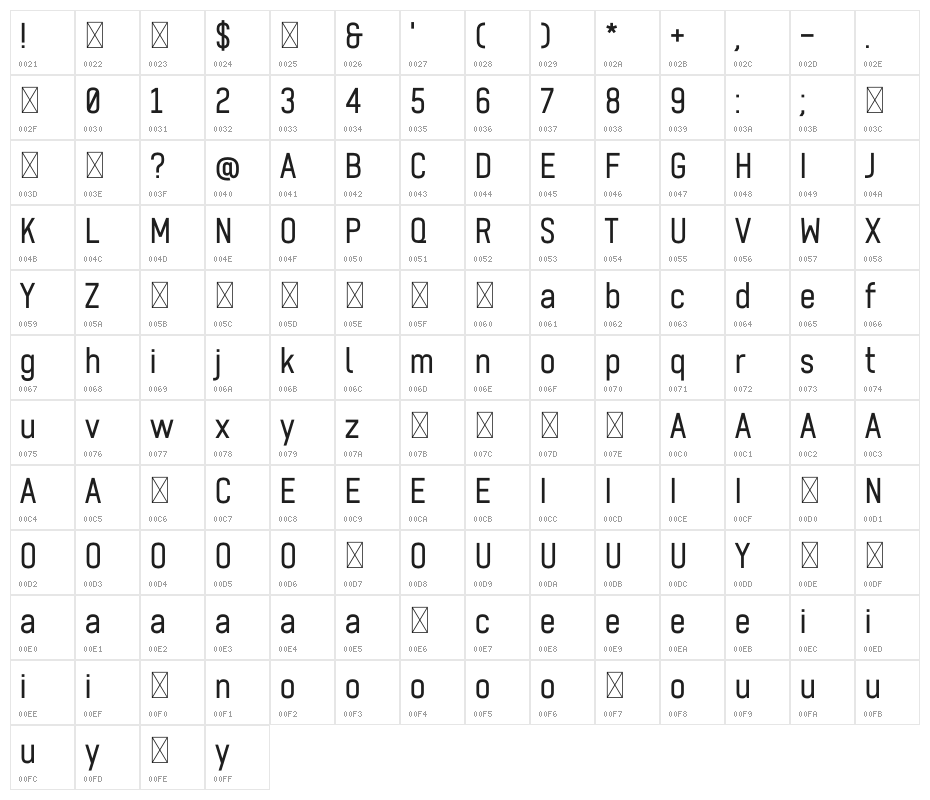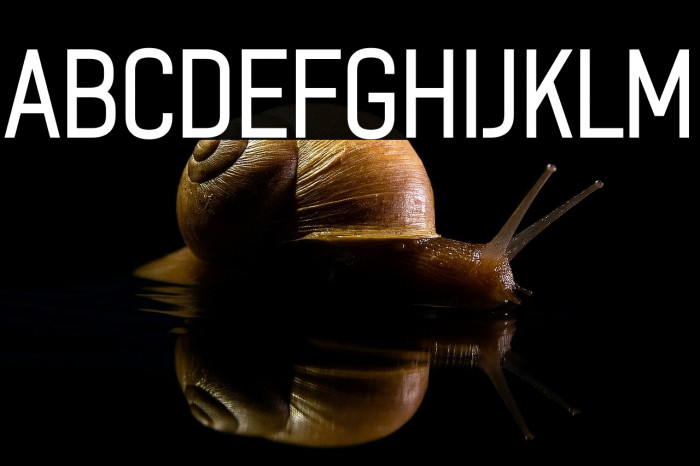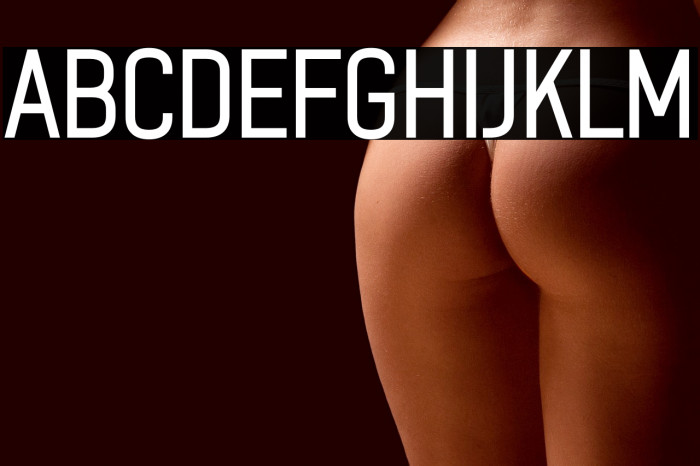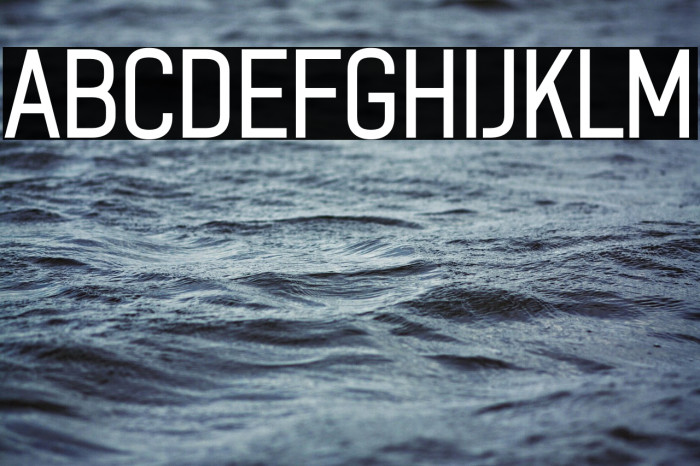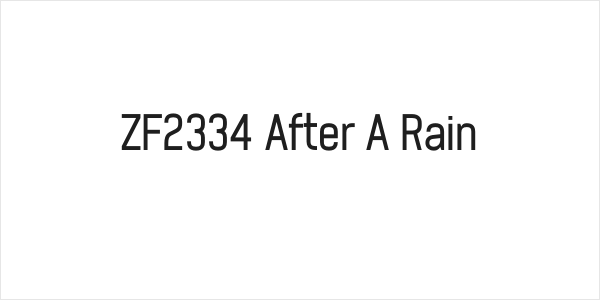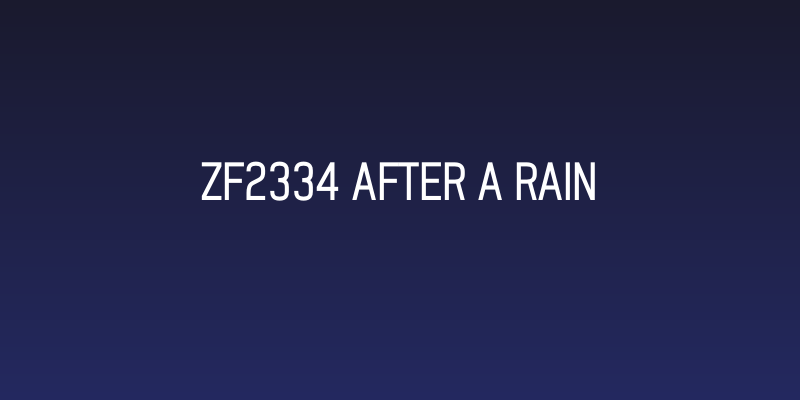
ZF2334 After A Rain Font
ZF2334 After A Rain Description
This font features a clean and modern sans-serif design with a geometric structure. The uppercase letters are bold and assertive, while the lowercase letters maintain a consistent and harmonious flow. The numerals are clear and straightforward, making them easily legible. The special characters are designed to complement the overall style, providing a cohesive look. The font's uniform stroke width and balanced proportions make it suitable for a variety of applications, from digital interfaces to print media.
| Use Case | Headlines, Logos, Digital Interfaces |
| Proposed Projects | Ideal for branding, digital interfaces, editorial design, and advertising campaigns. |